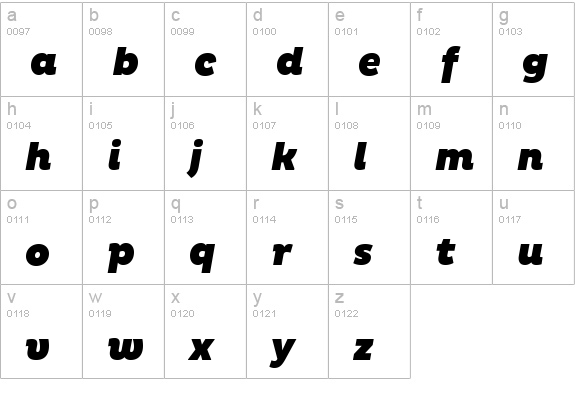
Pluto Black Italic is a maximum-weight, dramatic, italic variant in the Pluto typeface family \xE2\x80\x94 well suited to maximum-impact headlines, posters, and packaging.
Pluto Black Italic font exudes elegance and sophistication with its sleek design and modern aesthetic. The combination of bold strokes and slanted italics creates a striking look that will make your text stand out on any project. Whether you're designing a logo, poster, or website, Pluto Black Italic font is sure to make a bold statement. And the best part? This stunning font is available for free download at FontsMarket.com! Don't miss out on the opportunity to add Pluto Black Italic to your font collection and elevate your design projects to the next level. Download it today and unleash your creativity with this versatile and eye-catching typeface.